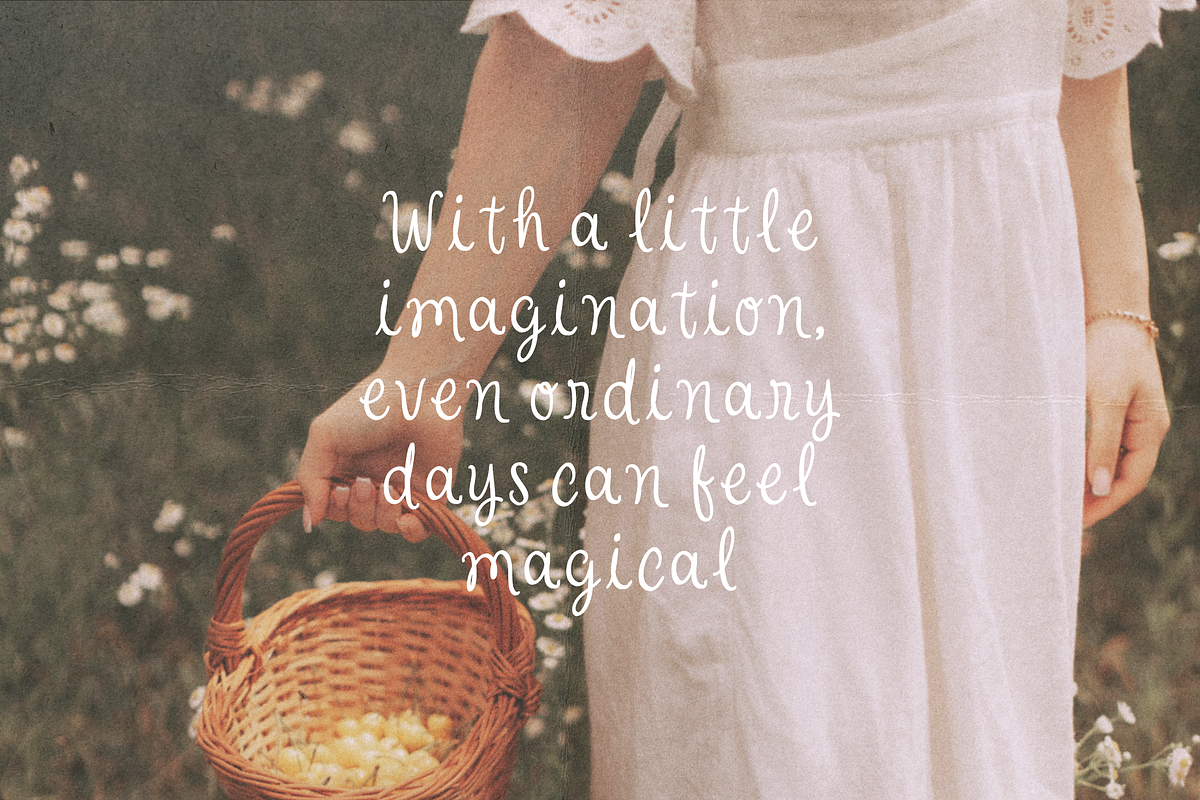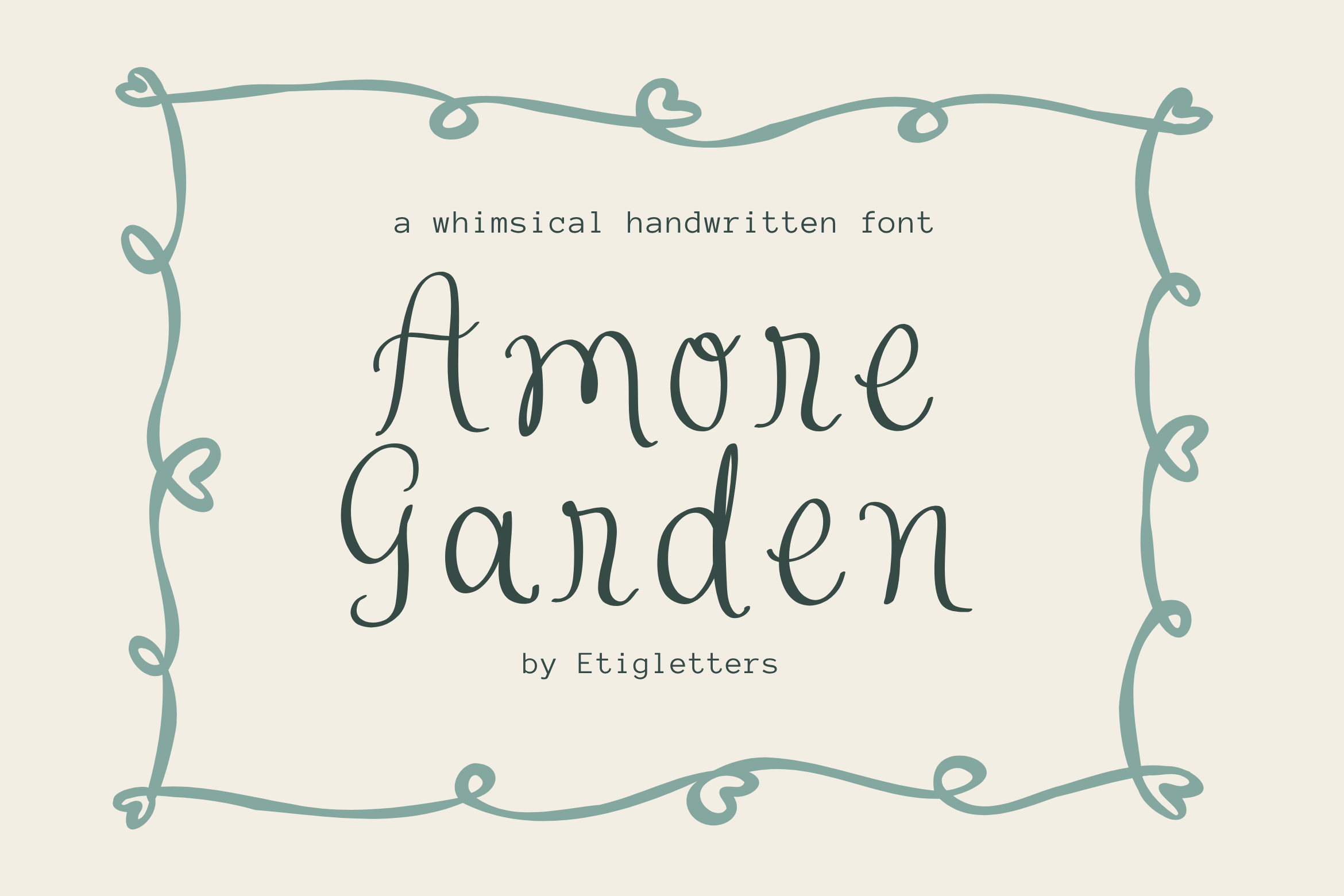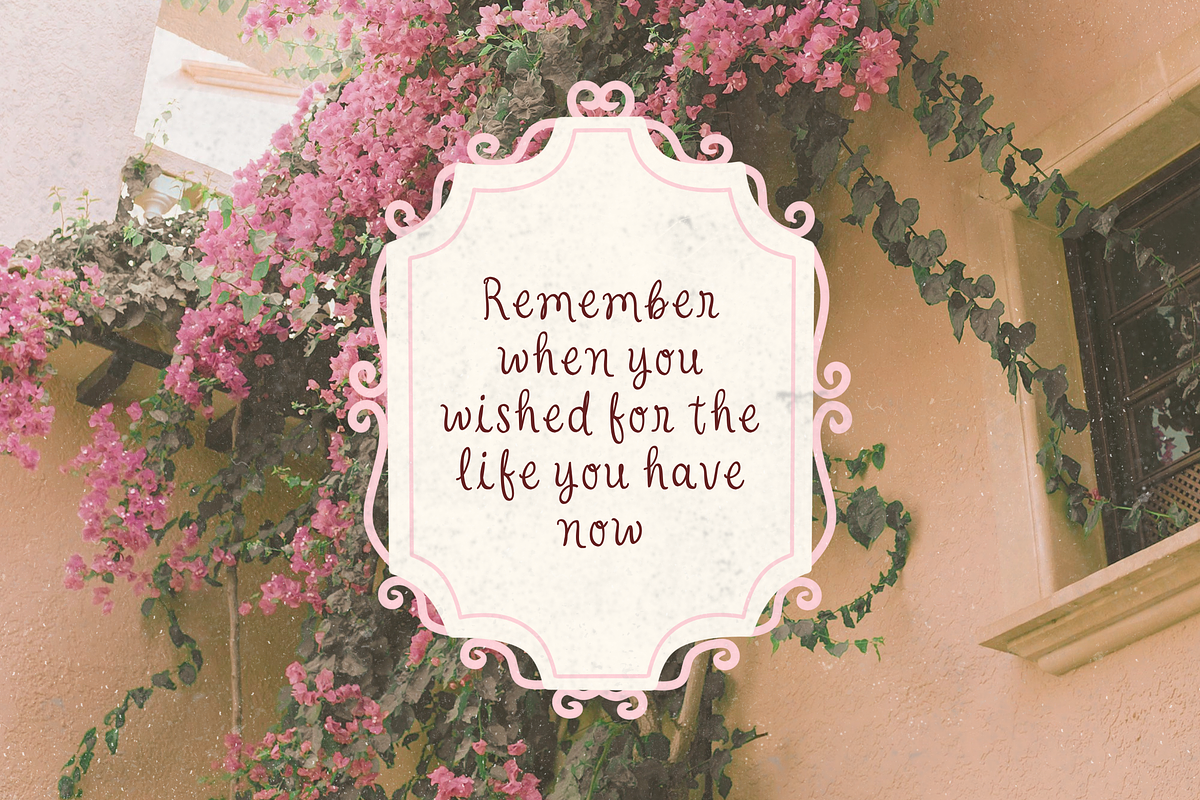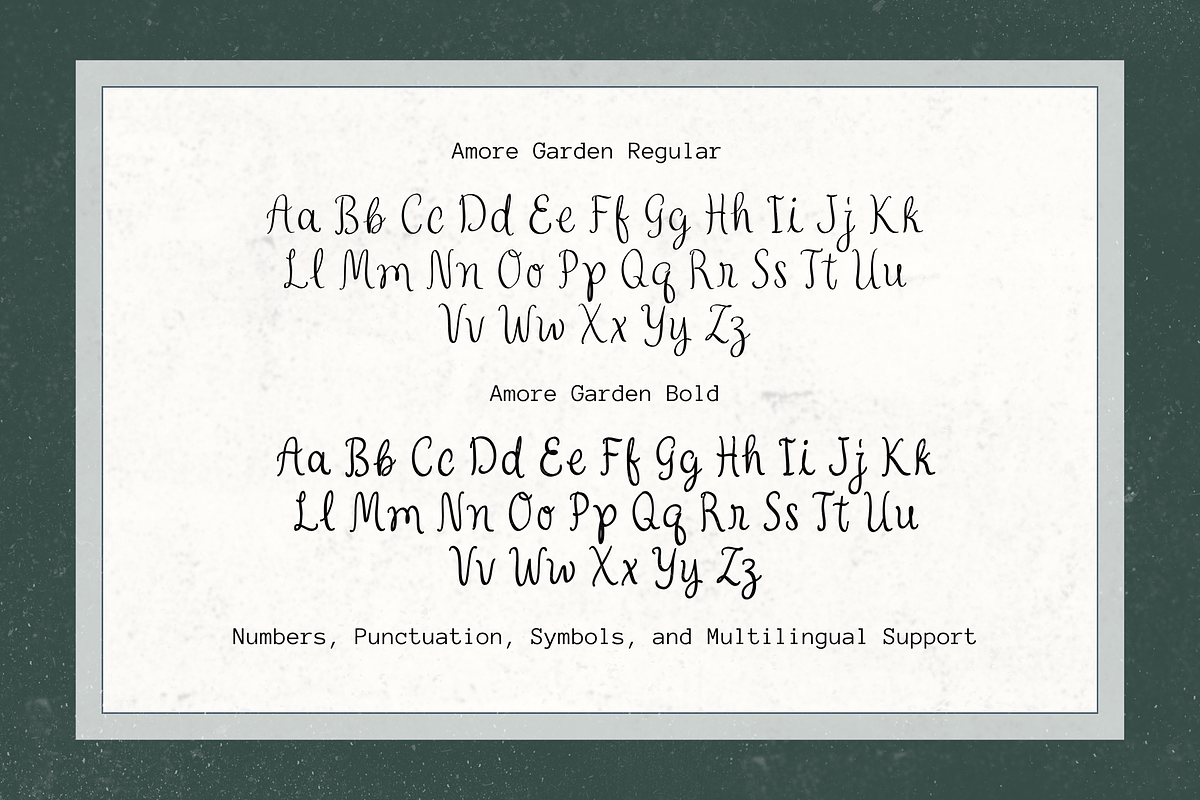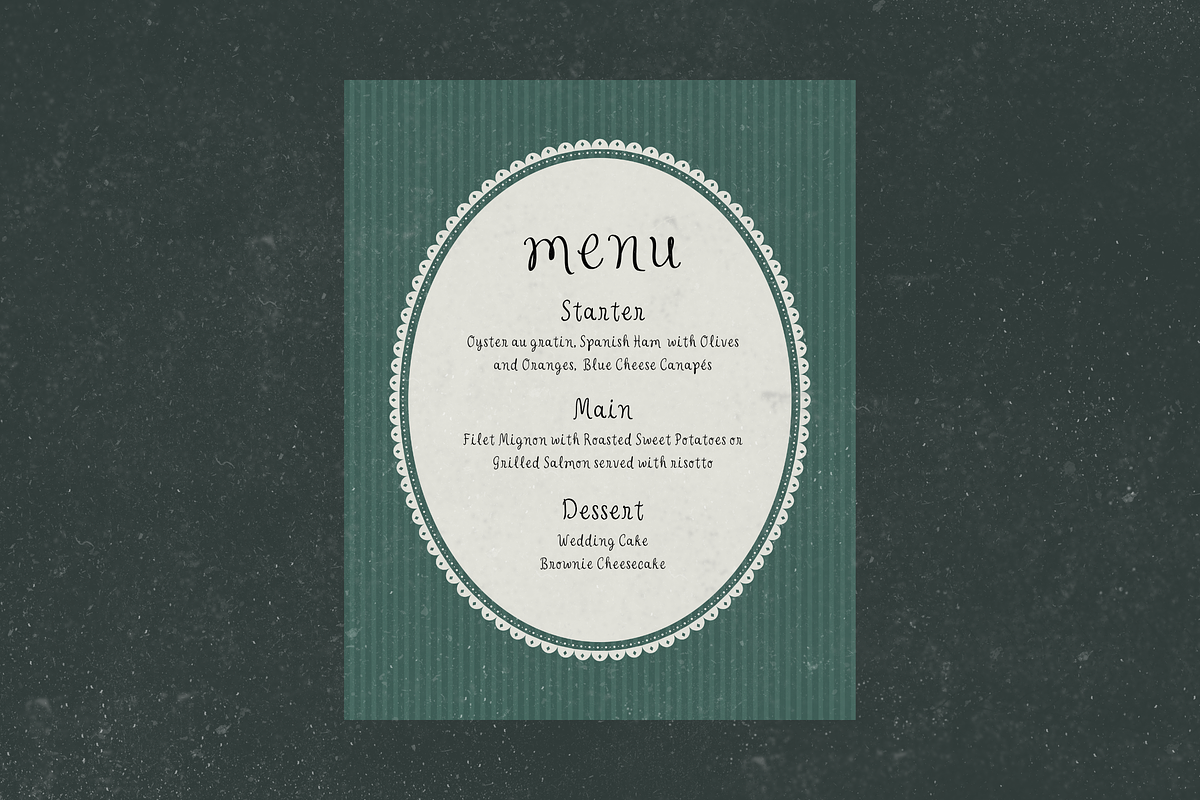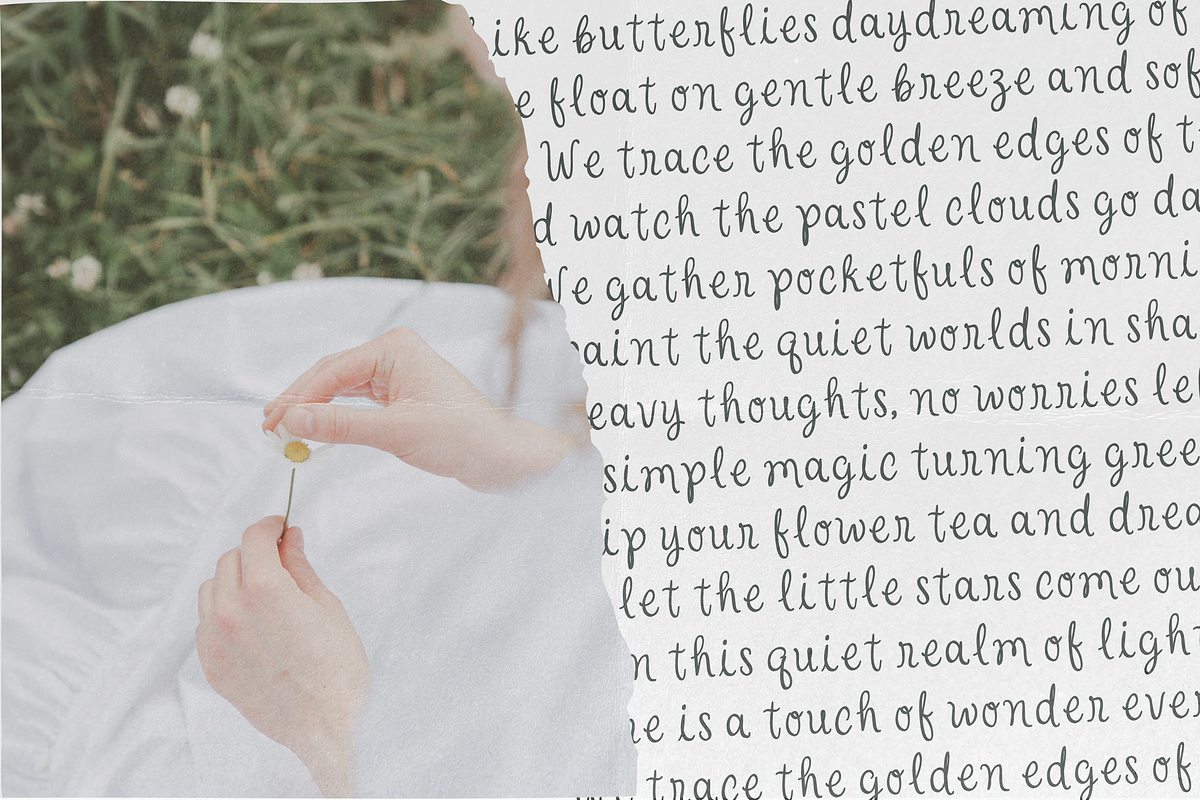
Amore Garden – Romantic Font
Introduce Amore Garden, an elegant serif font with a classic romantic touch. Designed with delicate swashes, refined curves, and soft details, this font captures the beauty of timeless elegance, making it ideal for luxurious and modern designs.
Amore Garden is perfect for wedding invitations, branding, logos, editorial layouts, quotes, packaging, labels, romance books, and stationery design.
Full Set of Uppercase and Lowercase Letters
Numbers, Punctuation, and Symbols